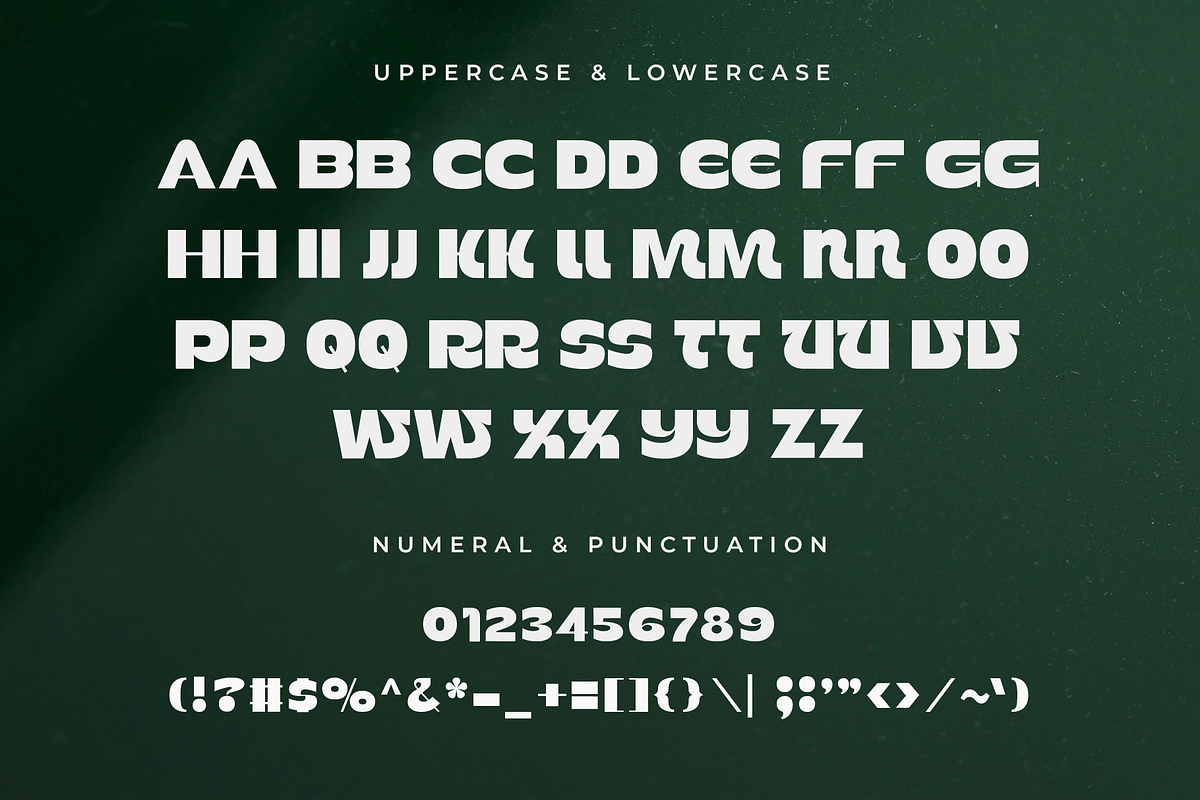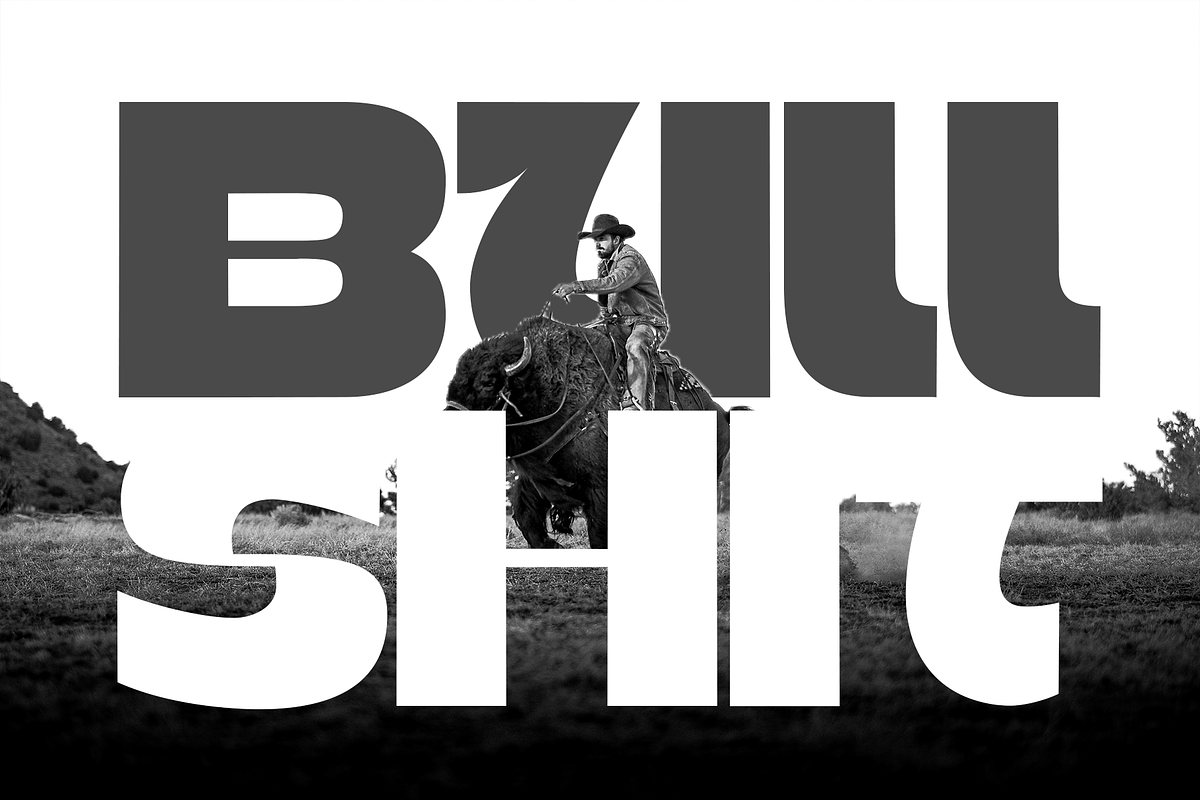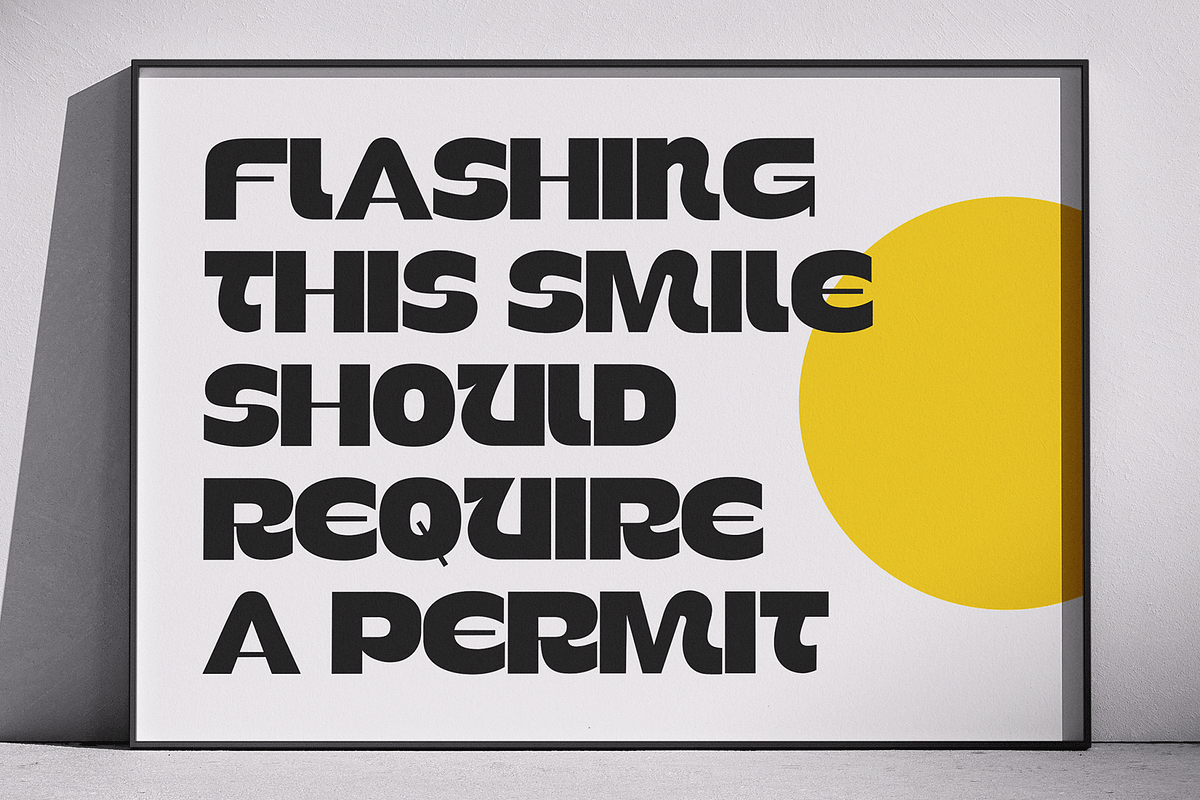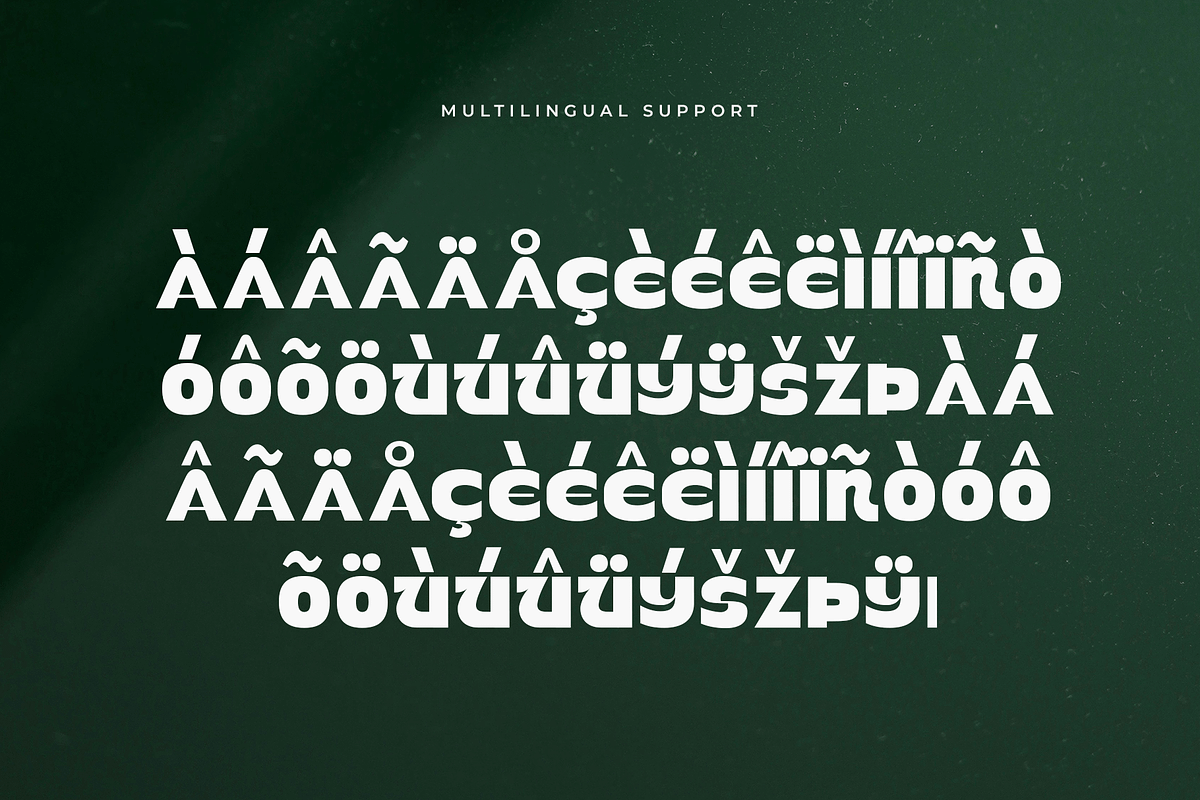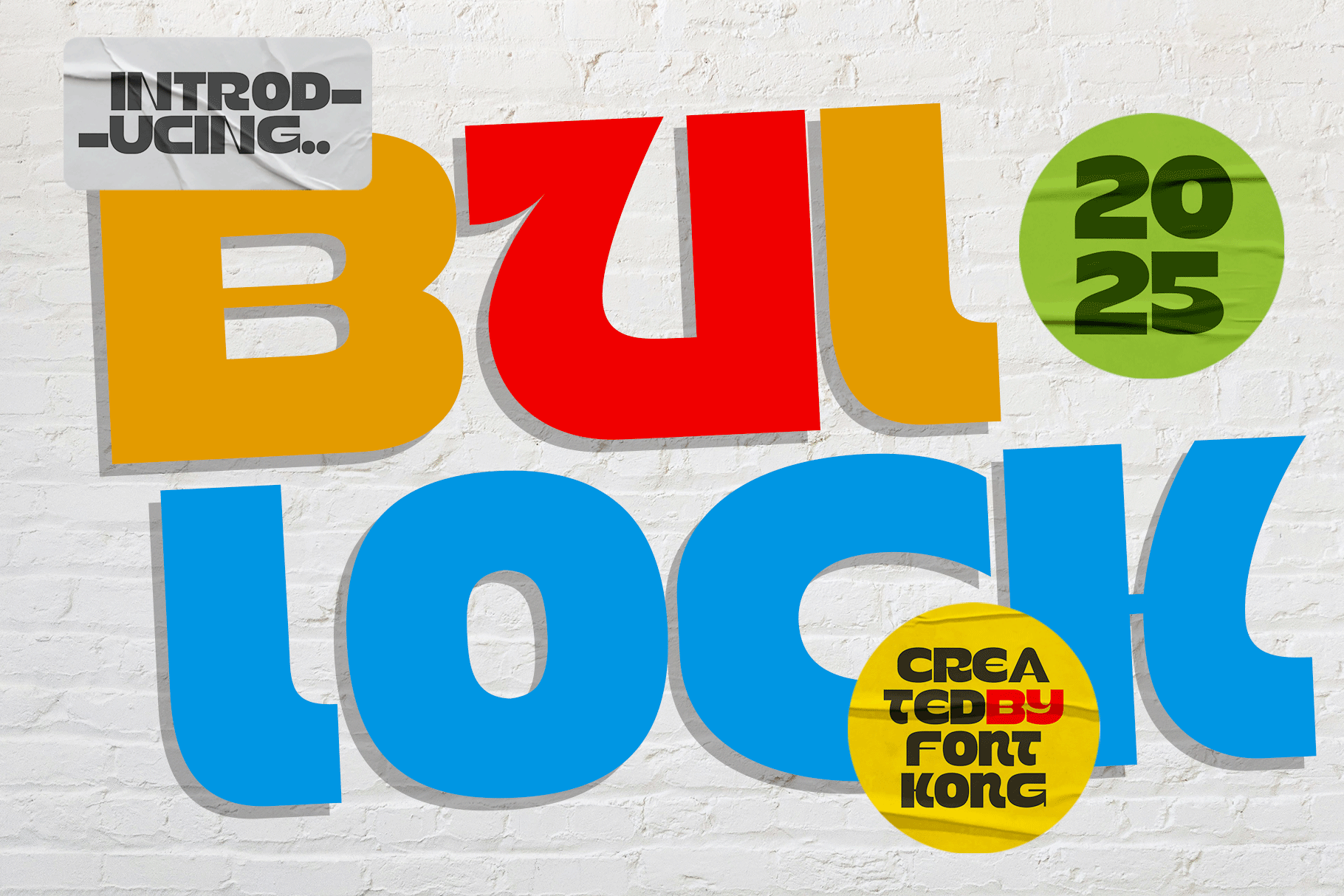
Bulock – Bold Sans Serif Typeface
Introducing Bulock, a bold sans serif font crafted for clarity and confident design. With its clean lines, thick strokes, and modern geometric feel, Bulock brings a powerful presence to logos, headlines, posters, packaging, and branding materials.
Designed for high readability and visual impact, Bulock is perfect for both digital and print applications. Whether you're creating a tech-inspired brand, a modern editorial layout, or standout social media graphics, this font holds its ground with commanding style.
The font includes uppercase and lowercase characters, numerals, punctuation, and multilingual support ensuring versatility for designers worldwide.